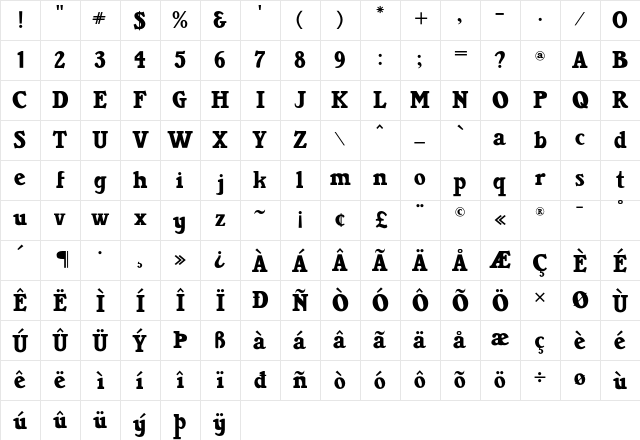
Complete Bruntsfield CF Black Regular glyph index. Displaying only characters natively supported by Bruntsfield CF Black Regular font.
Bruntsfield CF Black is a composed and adaptable typeface that performs quietly and consistently across a wide range of design contexts.